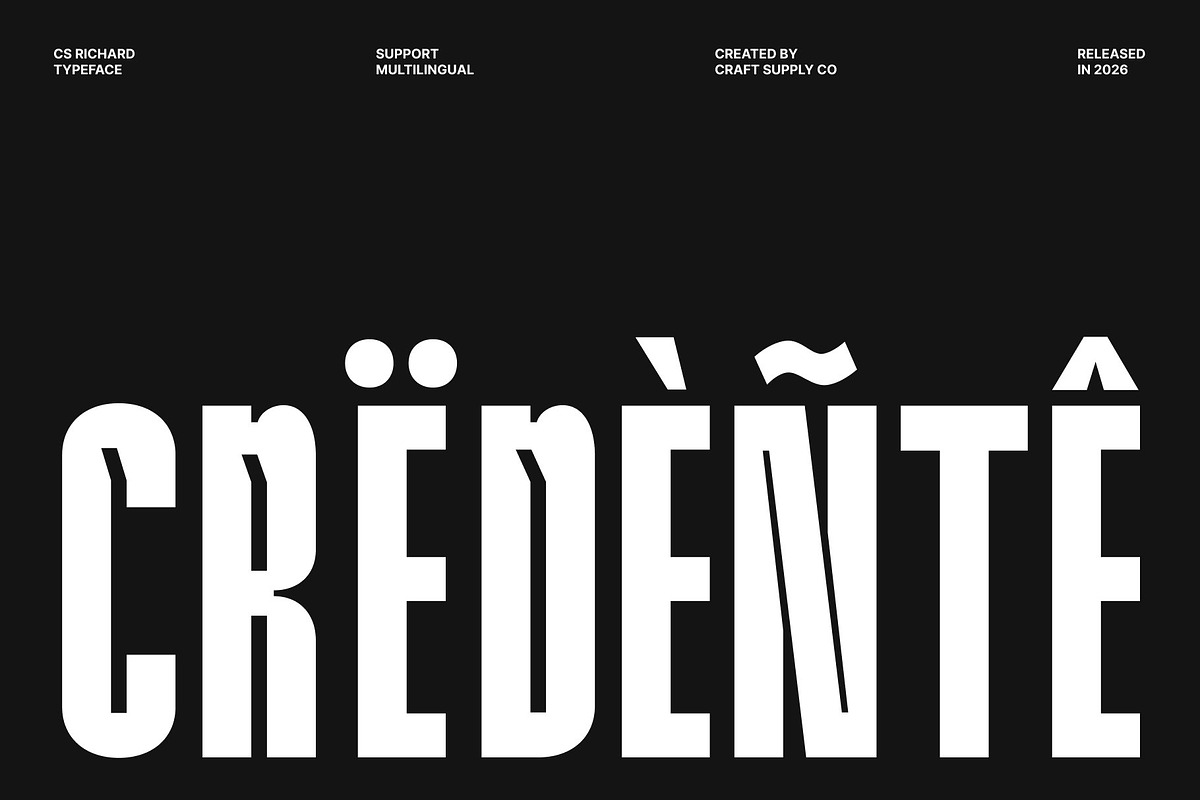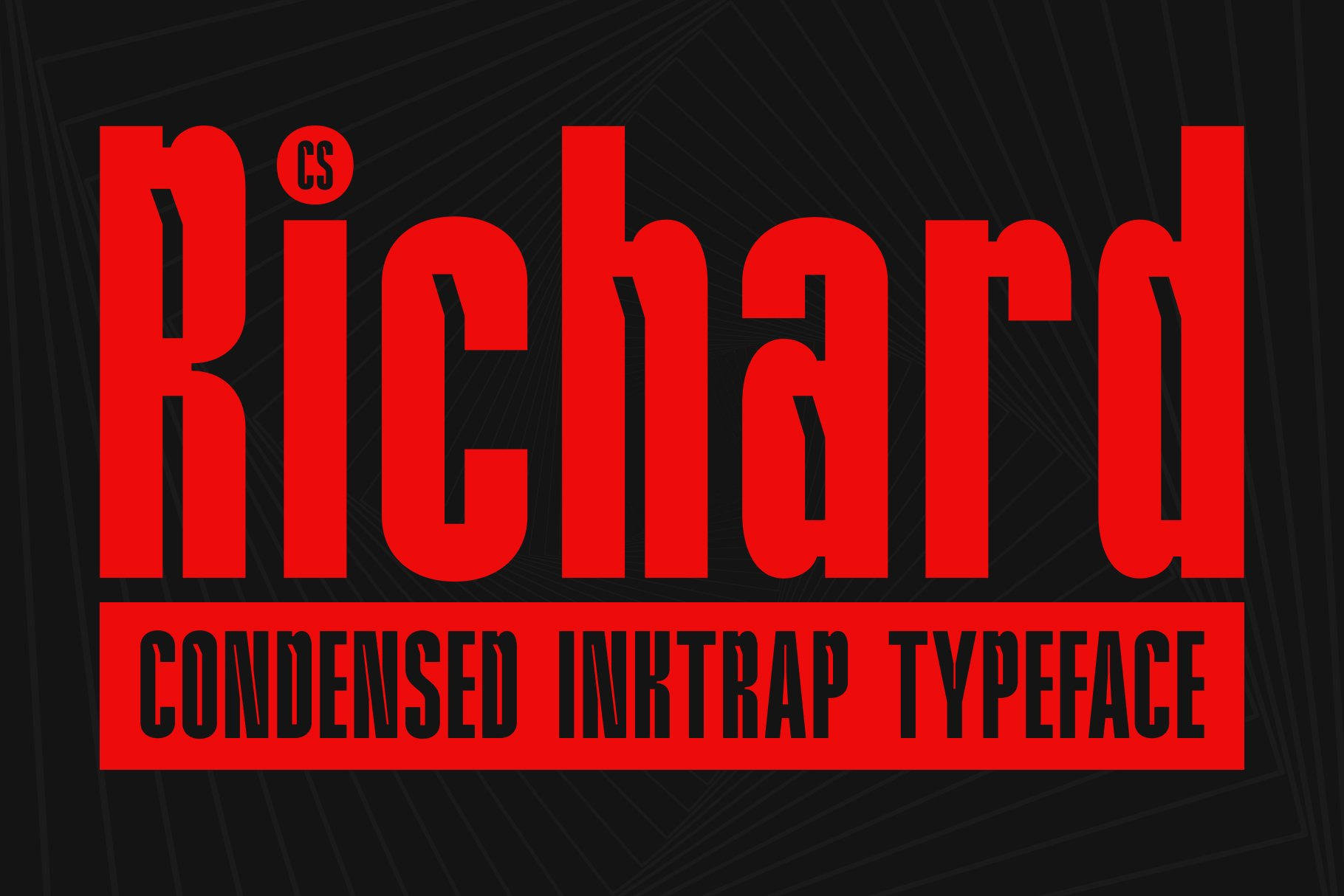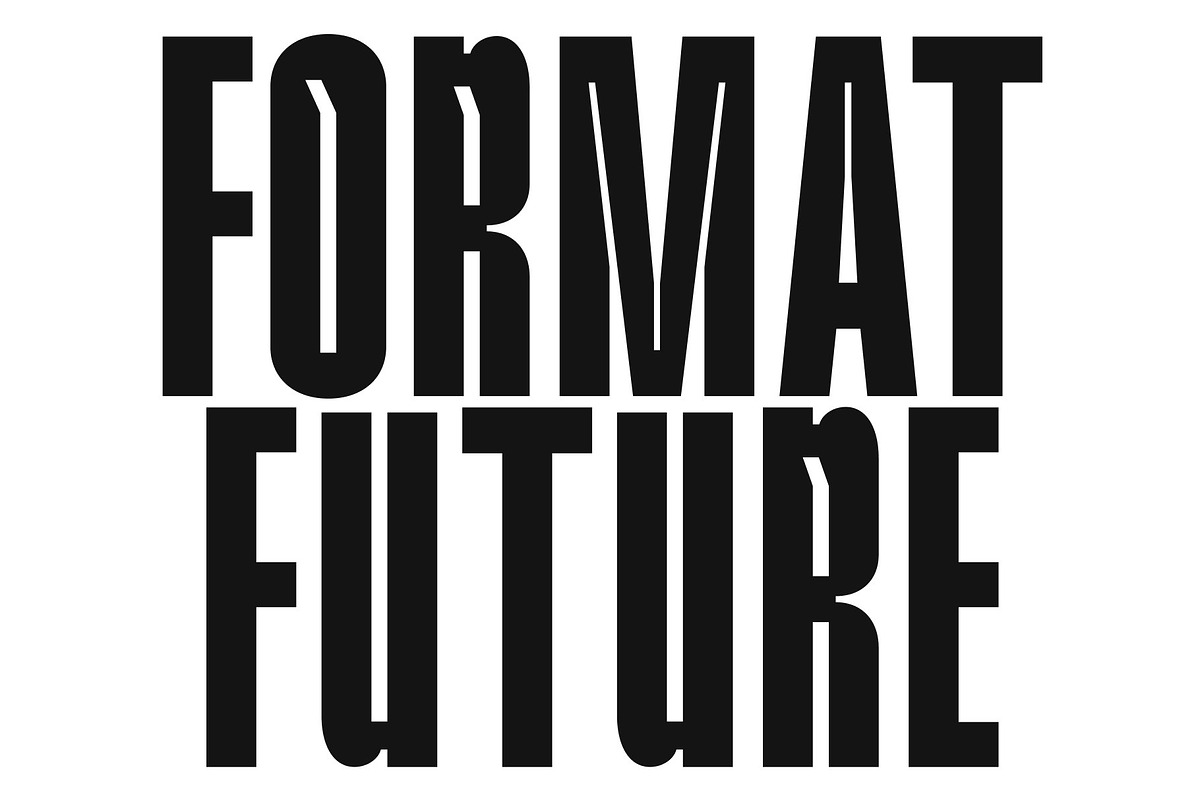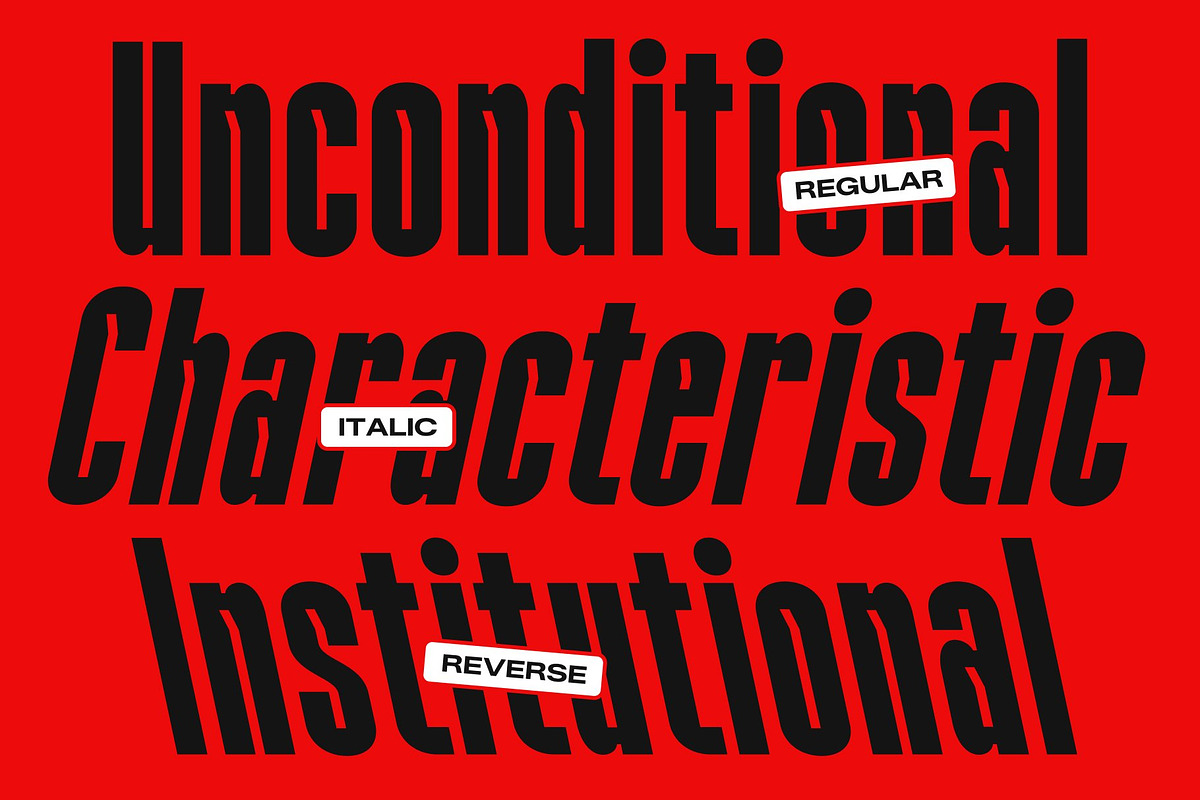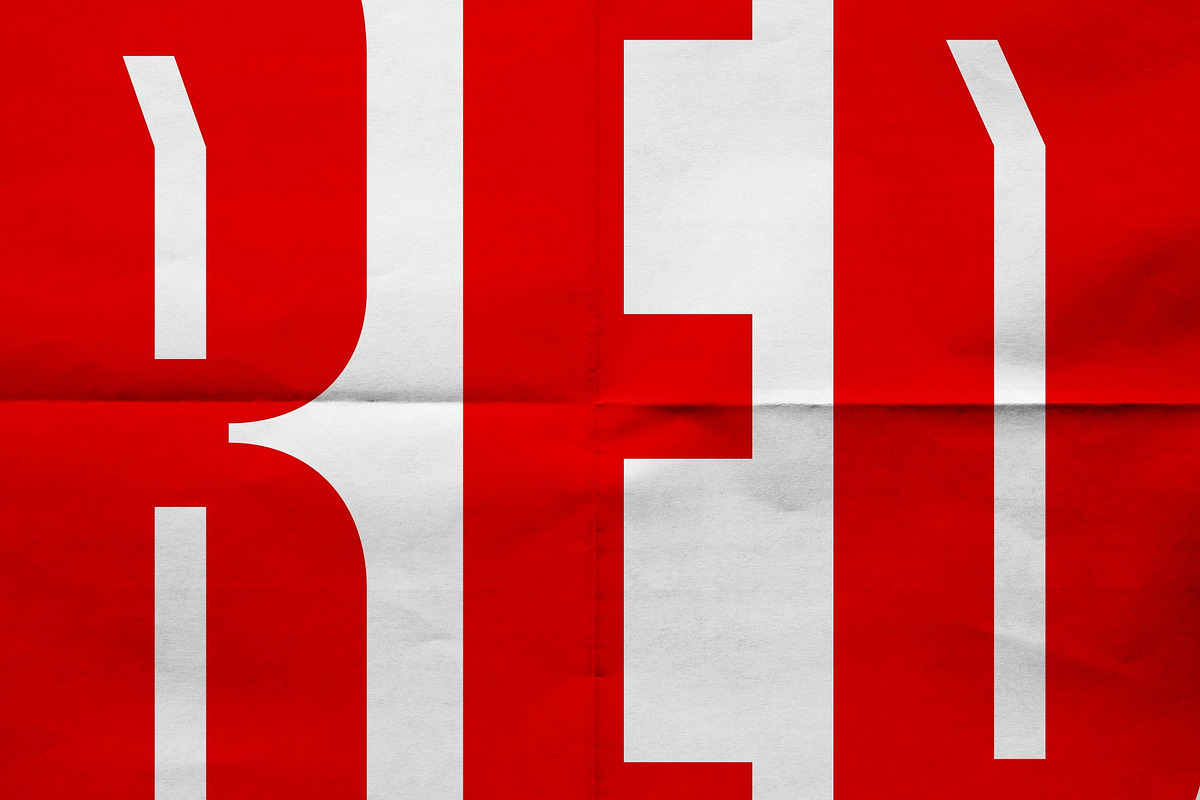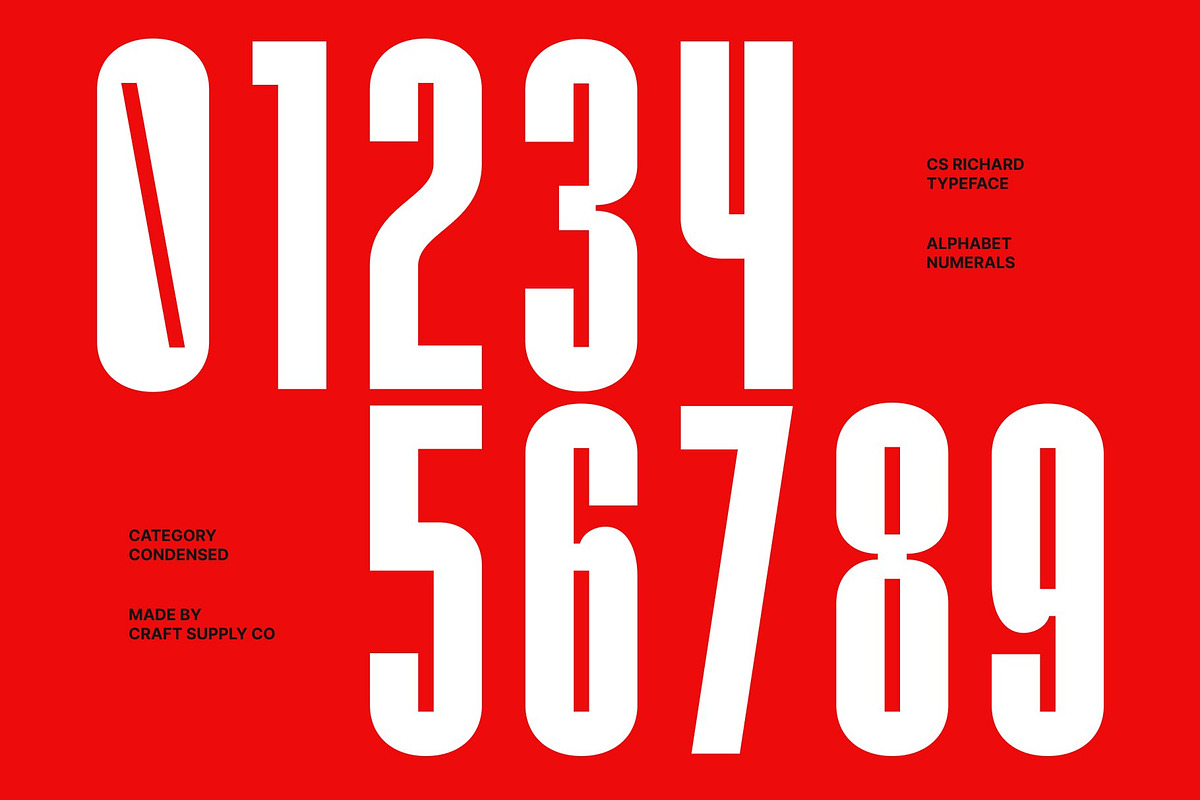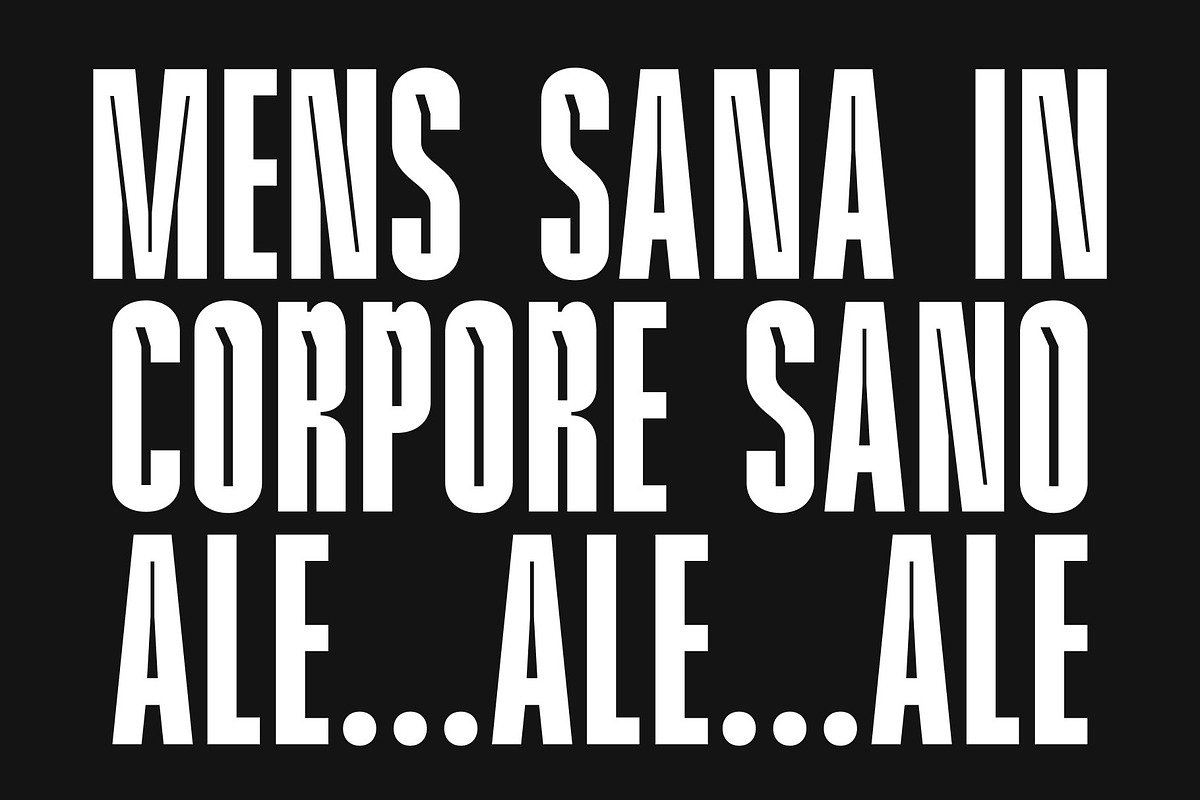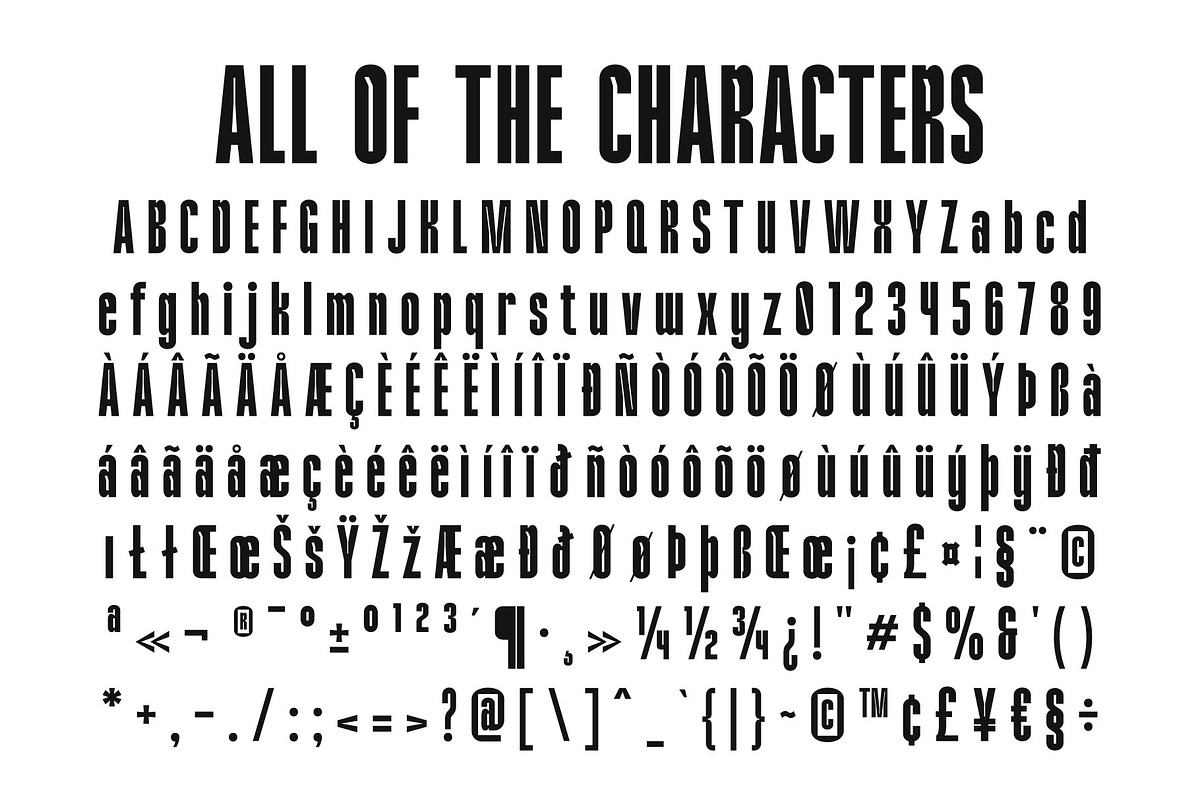
Richard – Condensed Inktrap Font
CS Richard – Condensed Sans Serif with Precision Inktrap Detail
Condensed Sans Serif with Modern Inktrap Character This is a compact and modern condensed sans serif font designed to deliver strong visual impact in limited space. Built with precision inktrap details, this typeface blends technical sharpness with contemporary design, creating a powerful and confident typographic voice. It is crafted for designers who need bold presence without sacrificing clarity.
Engineered for Tight Spaces and Strong Headlines The condensed structure allows more content to fit into smaller layouts while maintaining excellent readability. Each character is carefully shaped to feel tall, confident, and efficient, making it perfect for headlines, posters, and branding that demand attention. The narrow proportions maximize space while keeping the text visually balanced and easy to read.
Inktrap Details for Technical Precision Subtle inktrap cuts add personality and functionality to the letterforms. These details enhance legibility at large sizes and introduce a modern industrial edge that feels sharp and refined. The result is a typeface that looks both technical and stylish, combining performance with aesthetic appeal.
Versatile for Branding and Modern Design This font excels in branding, advertising, editorial headlines, and digital design where strong typography plays a key role. Its balance of readability, efficiency, and modern character makes it a reliable choice for designers seeking a confident and contemporary look that stands out in any layout.
CS Richard Regular
CS Richard Italic
CS Richard Reverse Italic